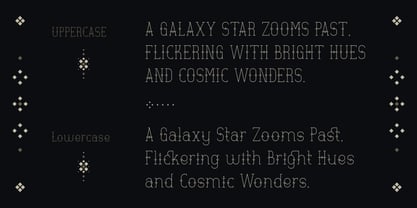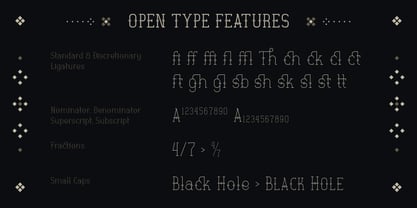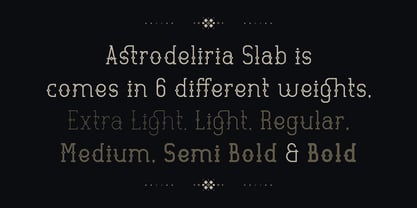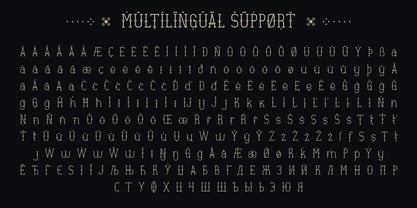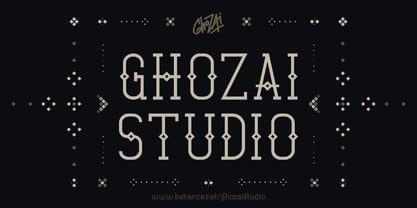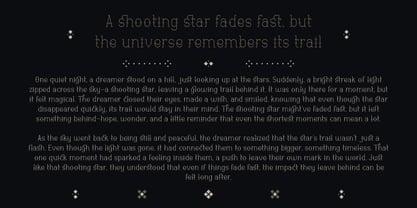
Astrodeliria Slab
by Ghozai Studio
The Astrodeliria Slab Font Family was designed by Manzur Ghozaali and published by Ghozai Studio. Astrodeliria Slab contains 6 styles and family package options.
Astrodeliria is a unique font family that includes 6 weights: Thin, Extra Light, Light, Regular, Semi Bold, and Bold. Inspired by the shapes of diamonds and stars scattered across the sky, this font combines elegance with geometric shapes. With its wide range of weights, OpenType features, and multilingual glyph support, Astrodeliria is ideal for projects in multiple languages, ensuring global versatility. Its dynamic style makes it perfect for display purposes, branding, signage, ethnic designs, and any project that demands a celestial, modern touch. Whether you're crafting eye catching headlines or sophisticated logos, Astrodeliria brings both style and impact, adaptable to a wide range of creative applications.
About Ghozai Studio
Ghozai Studio is a design studio based in Jombang, Indonesia, founded by Manzur Ghozaali. We always try to create a high-quality diverse range of fonts that can be seamlessly integrated into any design project. We also believe that the process of creating a product should be enjoyable and fun. We know that when we have fun during the creation process, we can produce products that are more innovative and engaging for our customers.